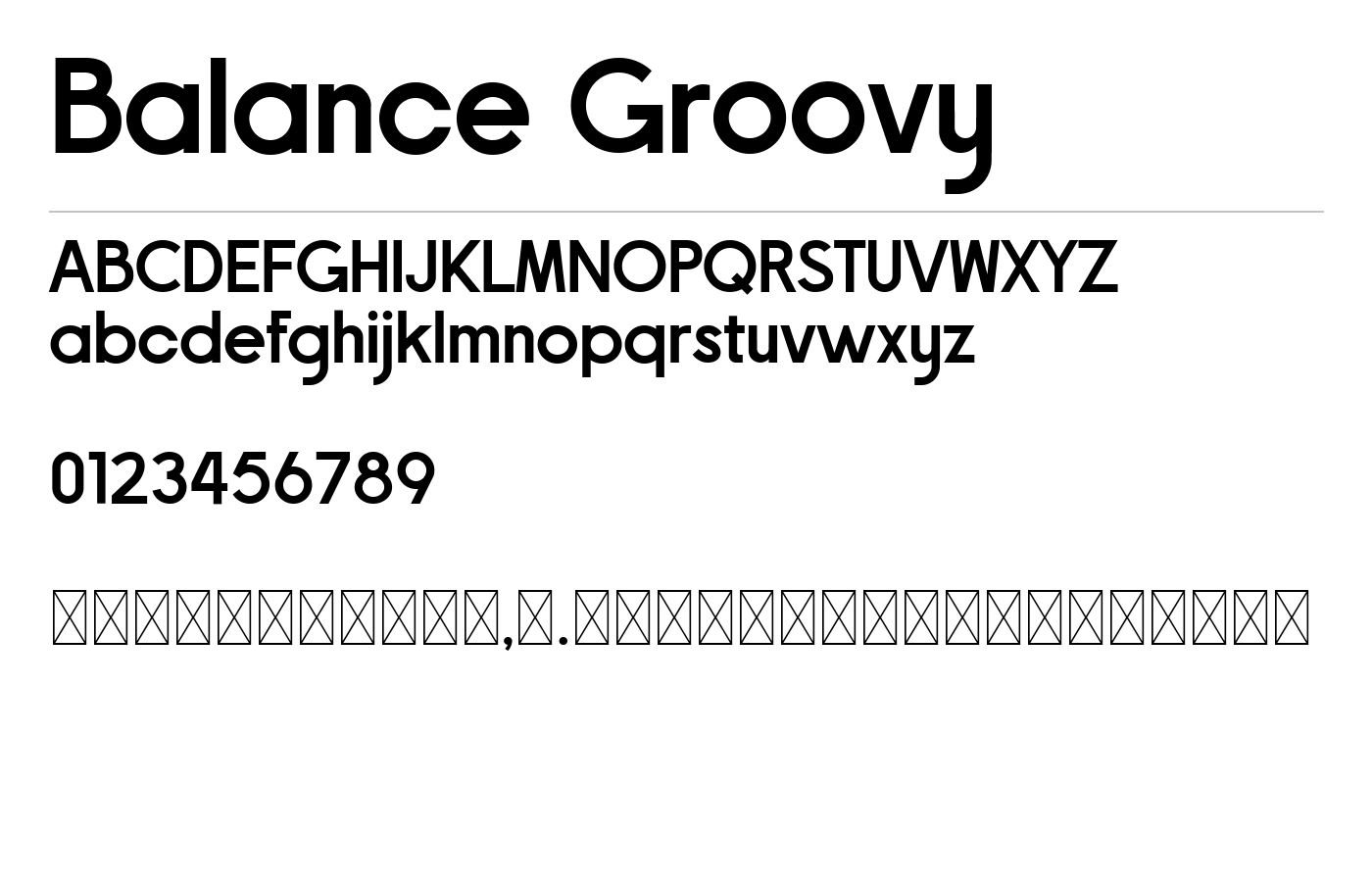
Balance Groovy is a clean, modern sans serif typeface with a bold weight and slightly condensed proportions. It features a medium x-height, geometric shapes, and distinctive single-story letters like 'a' and 'g,' giving it a contemporary and approachable feel. This font is perfect for branding, headlines, and digital uses where a strong, stylish presence is needed.
Balance Groovy Font
About Balance Groovy Font
| Font family | Balance Groovy Font |
| Designer | Rian Dryana |